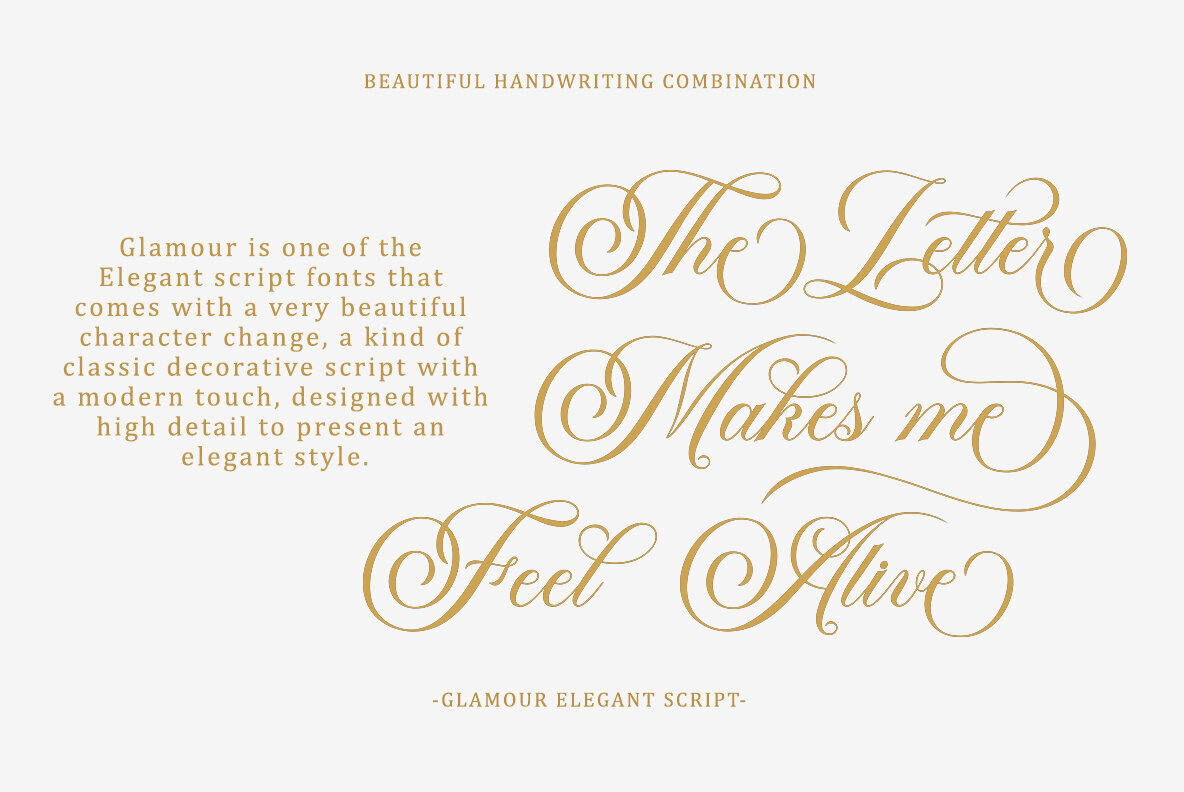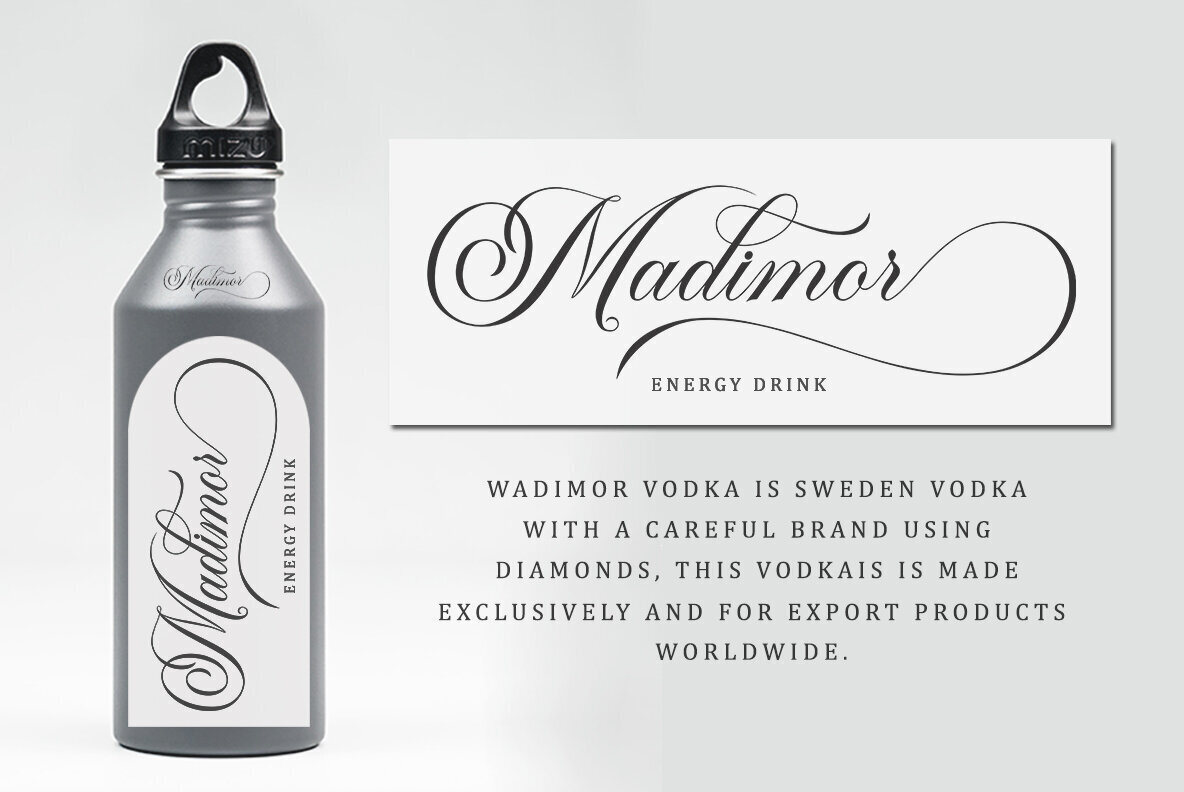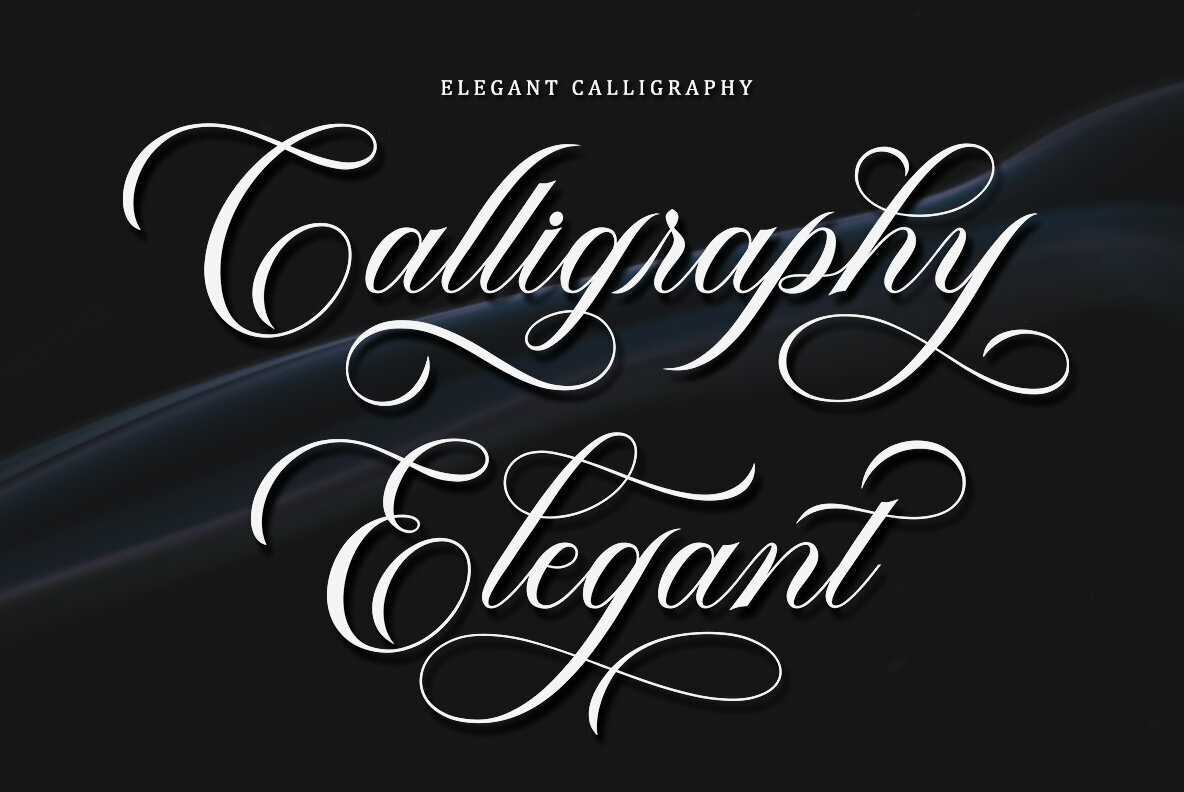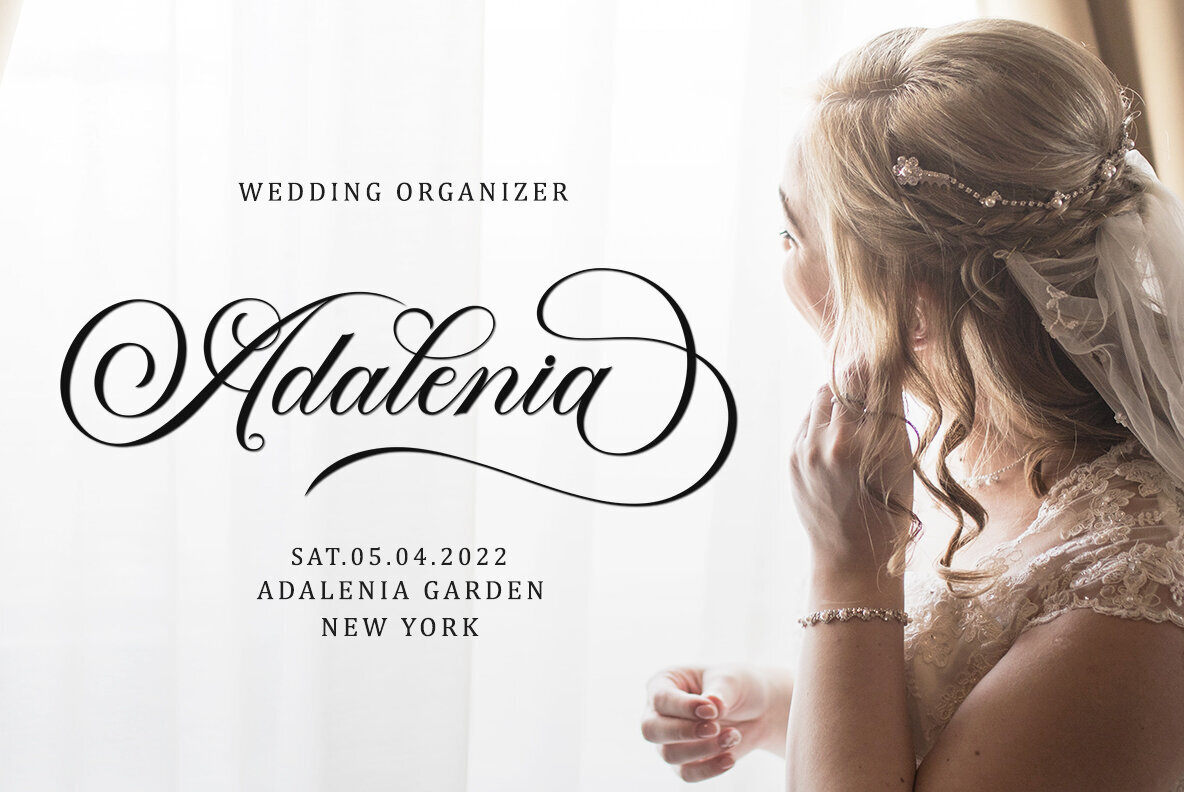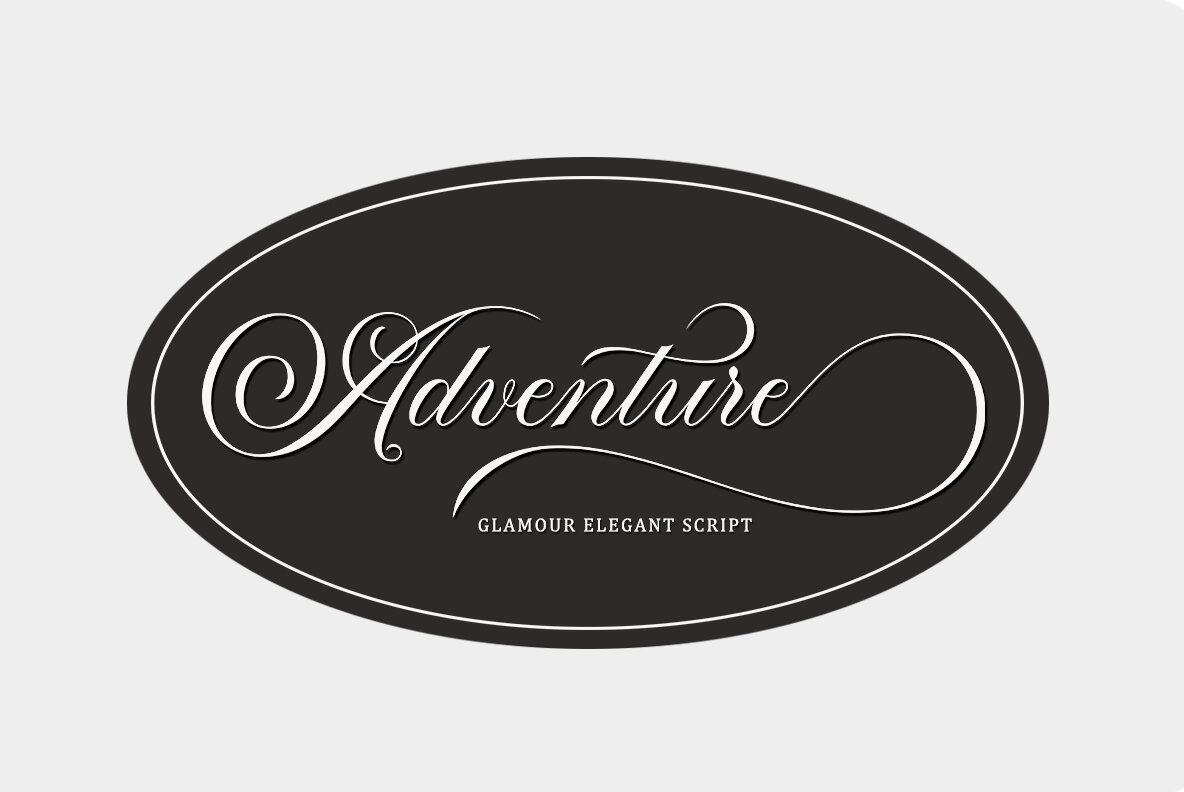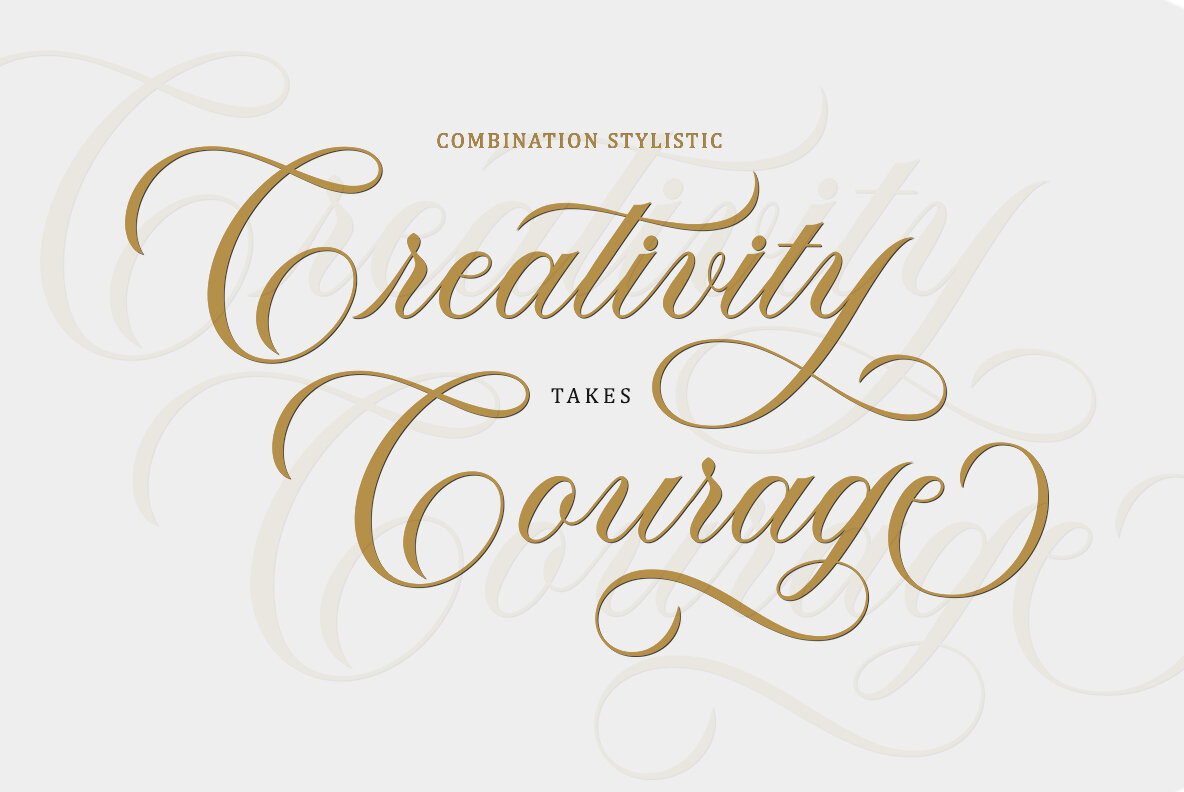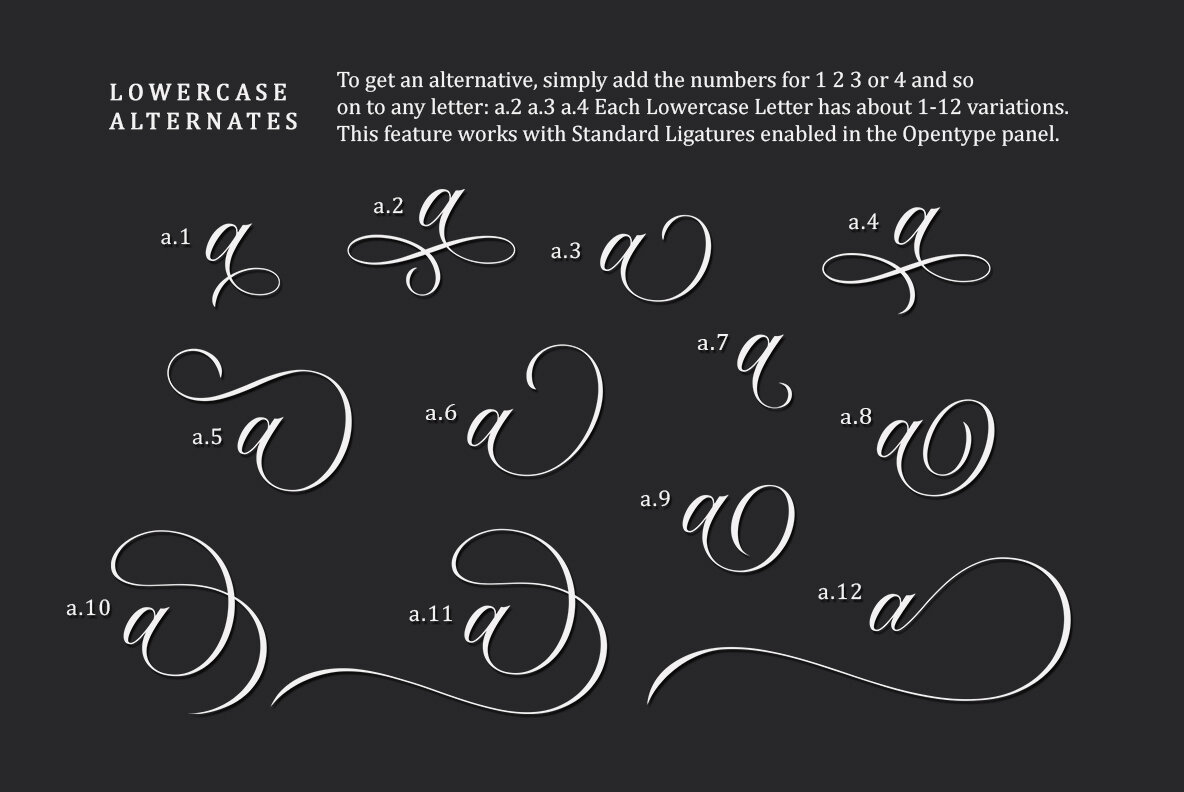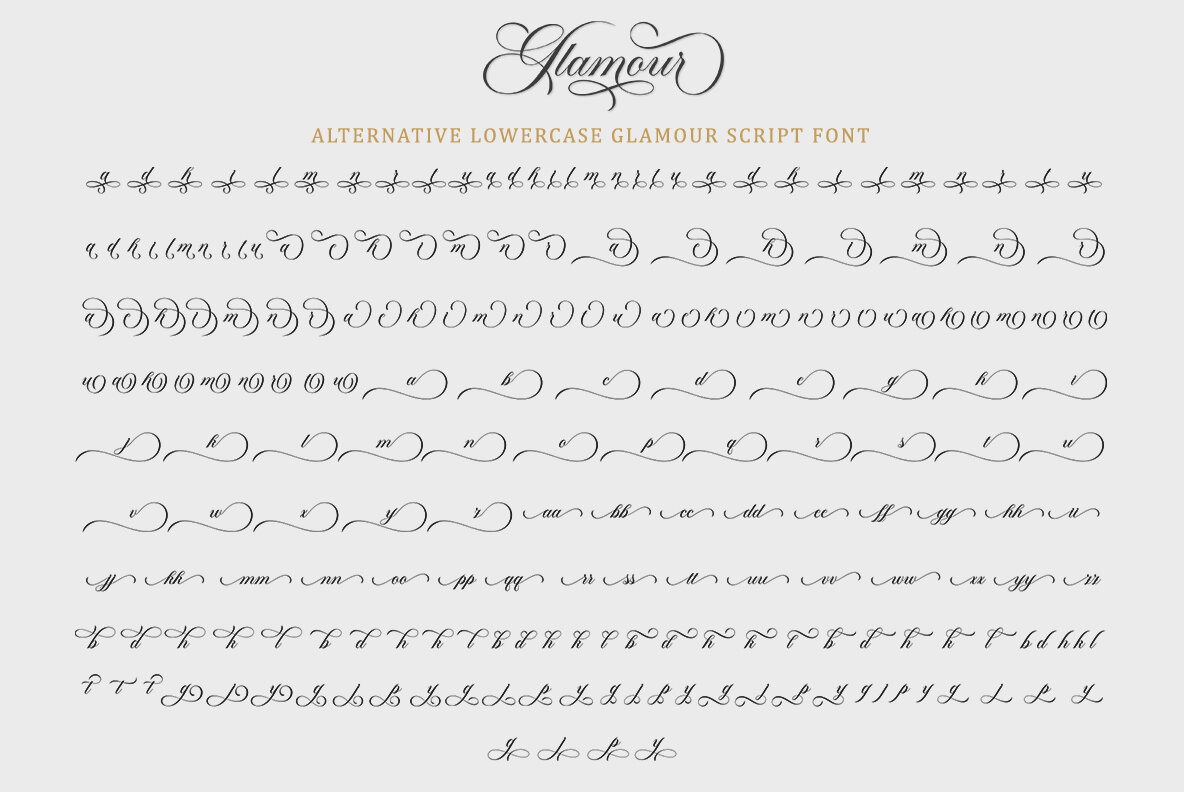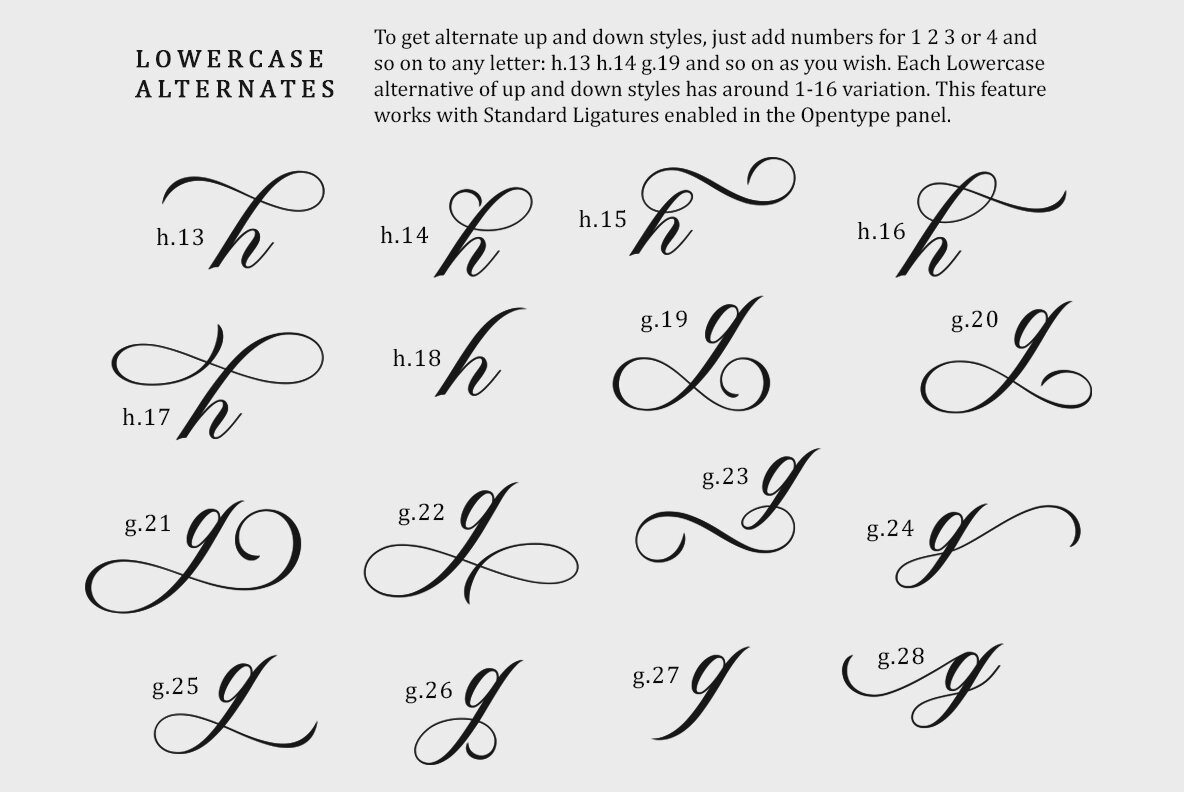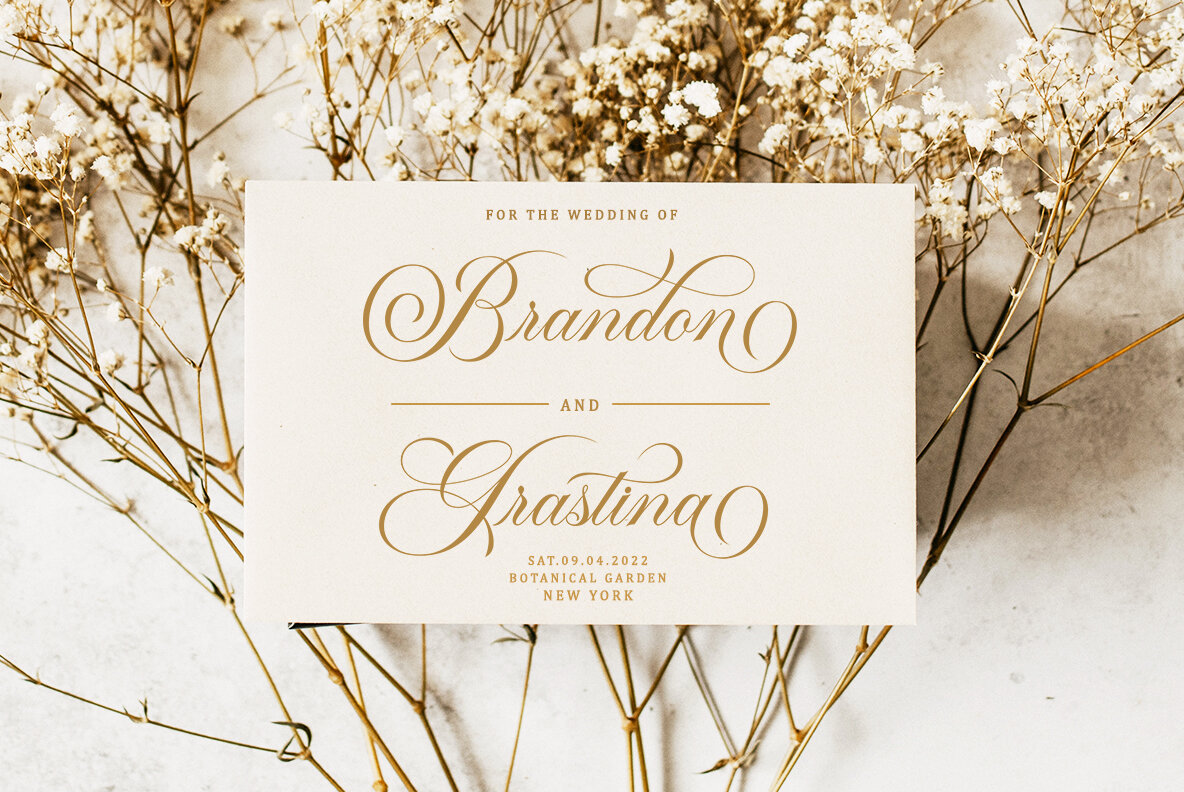
Glamona Font
Glamona
Glamona by Master Type is a testament to the enduring allure of scripted fonts. This elegant script evokes a sense of sophistication, rendering it an ideal choice for projects that demand a personal yet refined touch.Glamona Script: Elegance Embodied
Make a statement with Glamona, where elegance and style converge seamlessly.